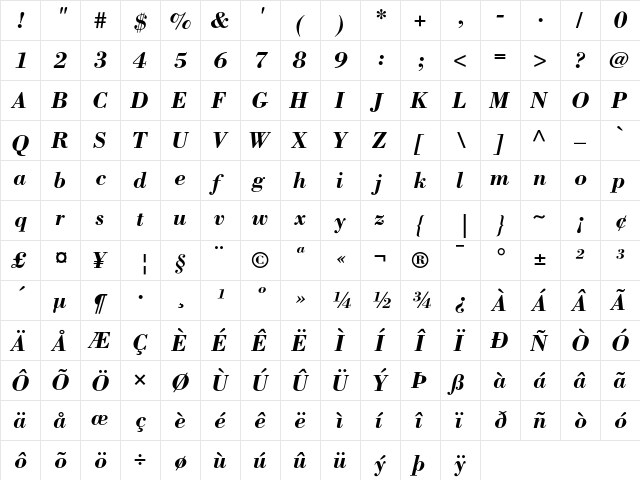
Bodoni Bold Italic
Design Context for Bodoni Typeface
Bodoni is a composed and adaptable typeface that performs quietly and consistently across a wide range of design contexts. The dynamic lean of this cut emphasises speed and emphasis in any layout. Its bold stroke weight gives it real presence on the page.
Pro Tip: Use Bodoni for emphasis, pull quotes, and subheadings where its slanted energy can add rhythm to the layout.